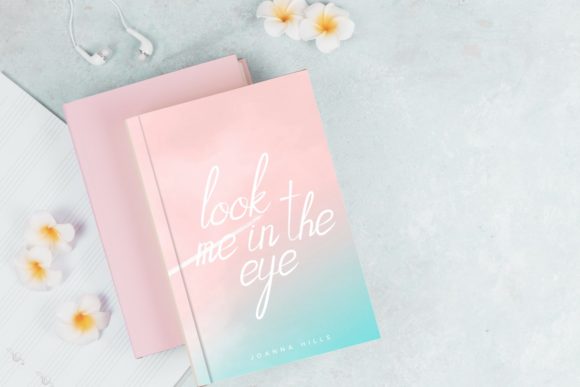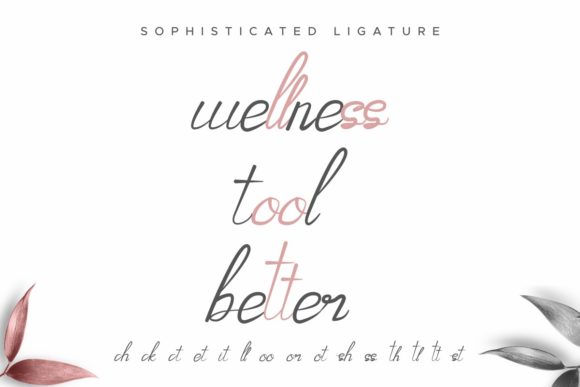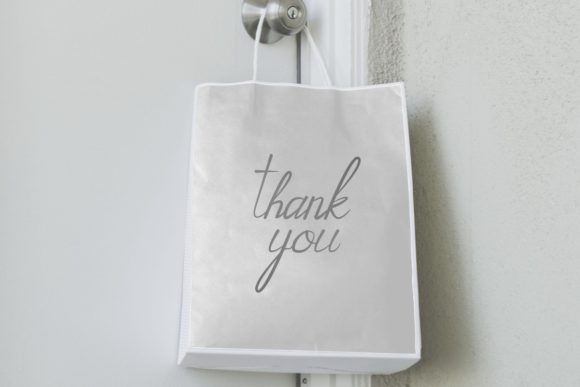
The Magic of Boyfie Font: A Designer’s New Best Friend
I’ll never forget the time I was working on a DIY project for a client’s wedding invitation. I had the design all planned out, but something was missing – the perfect font. I scrolled through my font library, but nothing seemed quite right. That’s when I stumbled upon Boyfie Font, and it was love at first sight! 💕
Boyfie results out of a stunning pairing of a brush pen and pencil that makes it look incredibly endearing and authentic. Use this gorgeous and unique script font to bring any DIY project to life!
• 💖 Unique and authentic look that’s perfect for DIY projects, wedding invitations, and more
• ✅ Easy to read, even in smaller sizes
• 🎨 Highly versatile – works well for both digital and print designs
• 🤩 OpenType features, glyphs, and stylistic alternates galore!
• ⚠️ Some letters may appear a bit inconsistent, which can be a charming feature or a limitation, depending on your design needs
• 😐 May not be the best fit for very formal or corporate designs
The Story Behind Boyfie Font: A Designer’s Inspiration
Boyfie Font was created by a talented designer who wanted to capture the magic of handwritten script. Inspired by the imperfections and uniqueness of brush pen and pencil work, Boyfie Font was born. With its endearing and authentic look, it’s no wonder Boyfie Font has become a favorite among designers and crafters alike!
Q: Is Boyfie Font suitable for body text?
A: While Boyfie Font is beautiful, it’s best suited for headings, titles, and short paragraphs. For body text, a clearer font may be more readable.